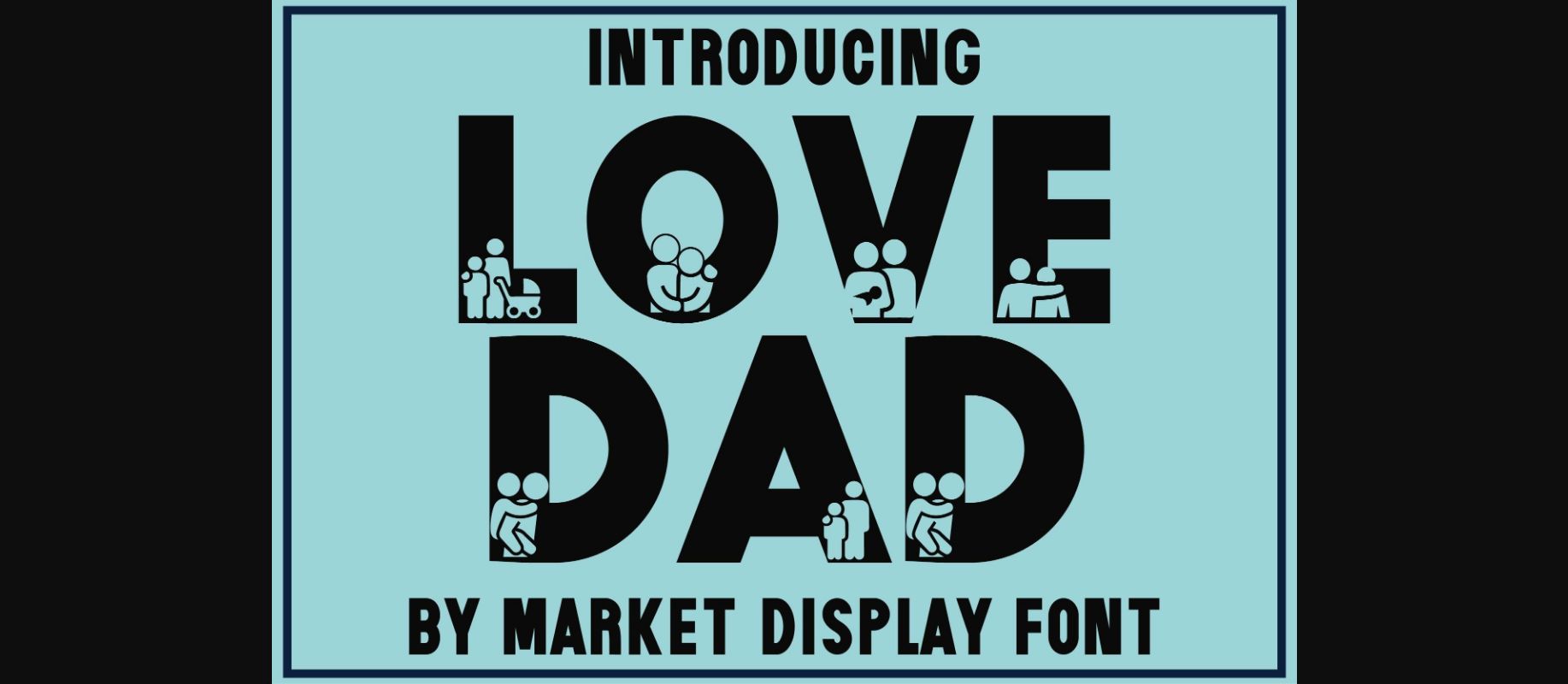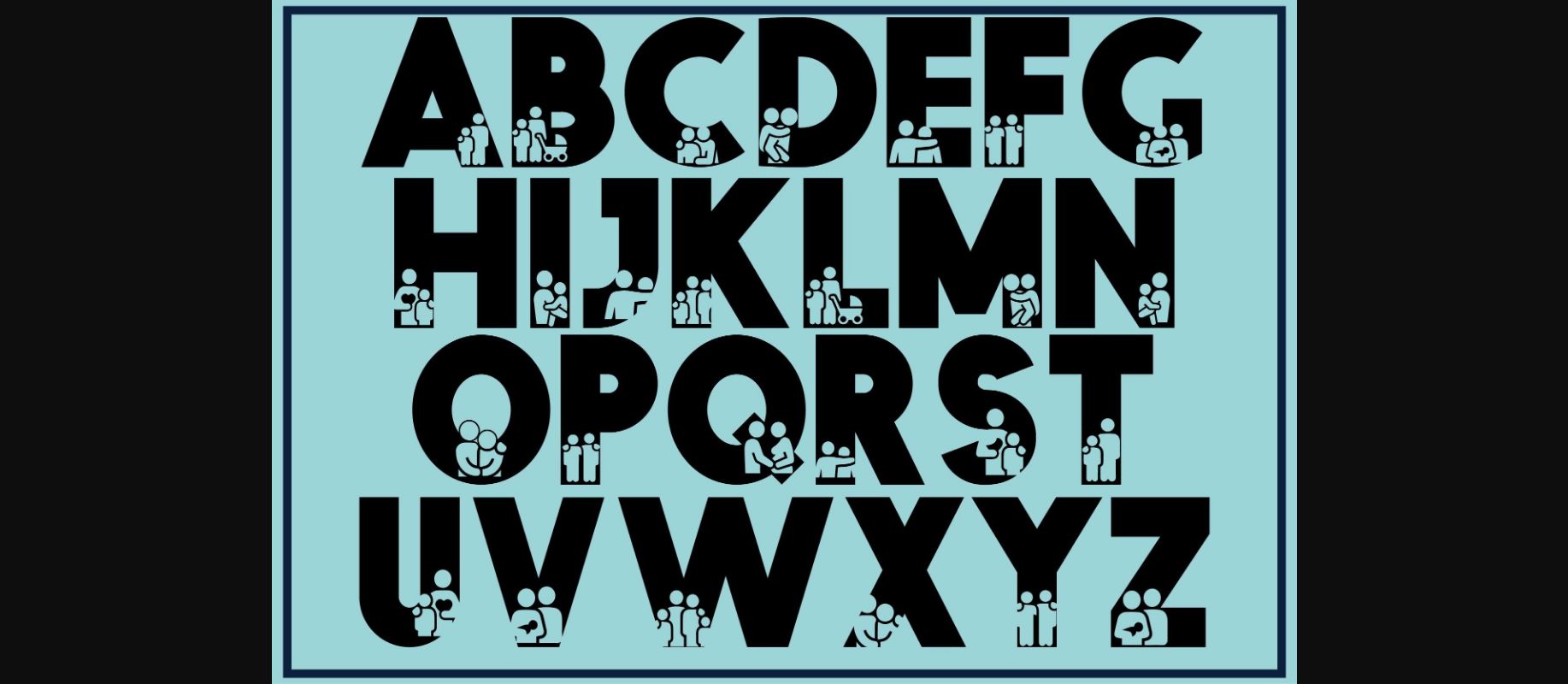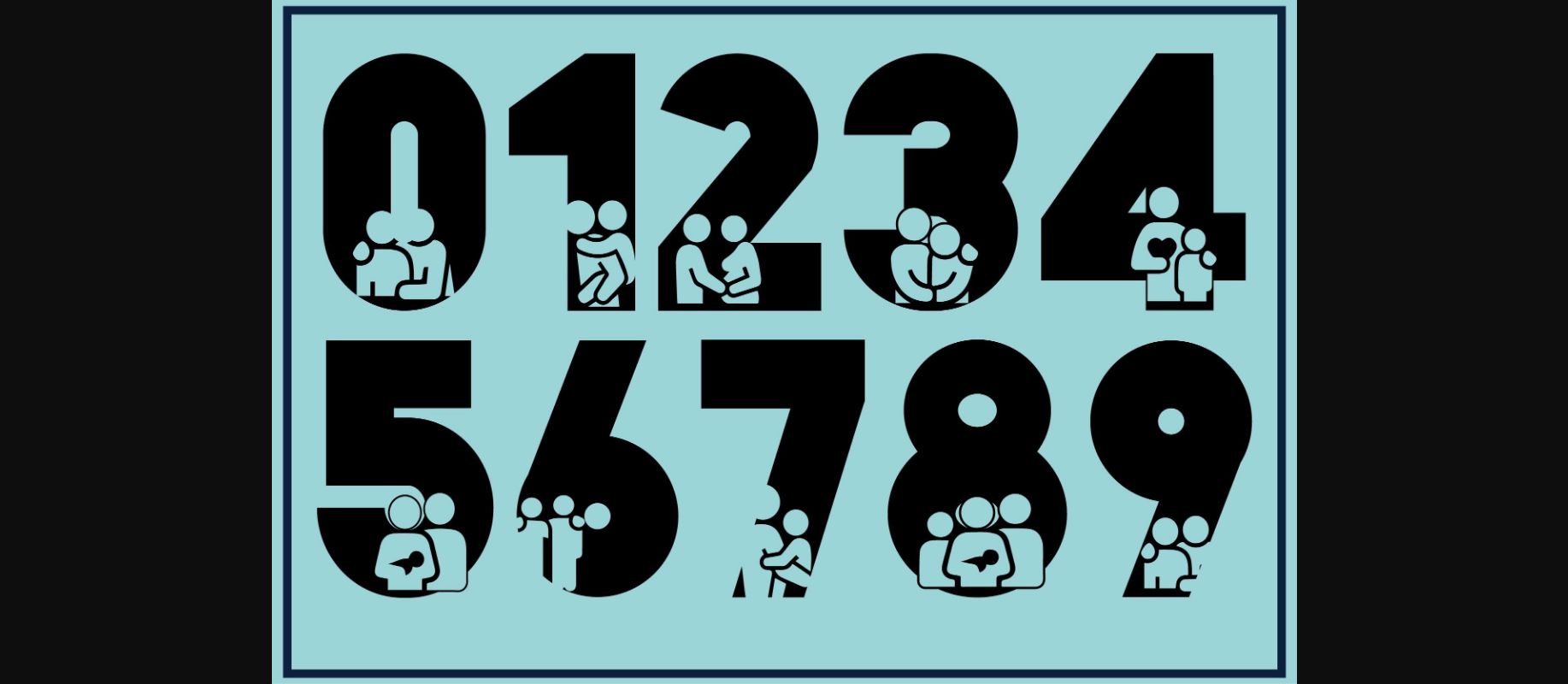
About Love Dad Font
Create gorgeous and timeless designs with Love Dad – an interesting and unique decorative font. Fall in love with its incredibly stylish look and use it for logos, quotes, invitations, business cards, presentations and more!